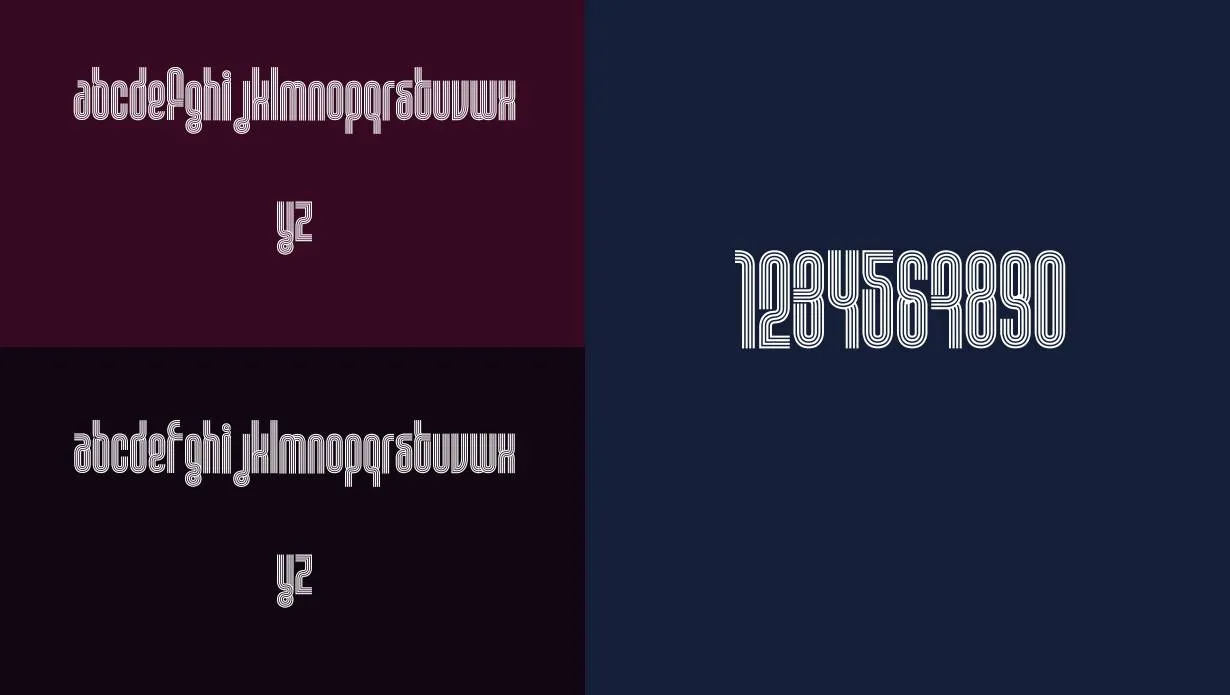
Get ready to dance with the Disco Regular font. It’s like your words are hitting the dance floor with their groovy and energetic style. The letters have a playful rhythm, making them move and groove across the page.
This font is perfect for projects that want to capture the fun and excitement of a disco party. Whether you’re designing an event poster or creating a funky invitation, the Disco Regular font adds a lively and vibrant beat to your words.